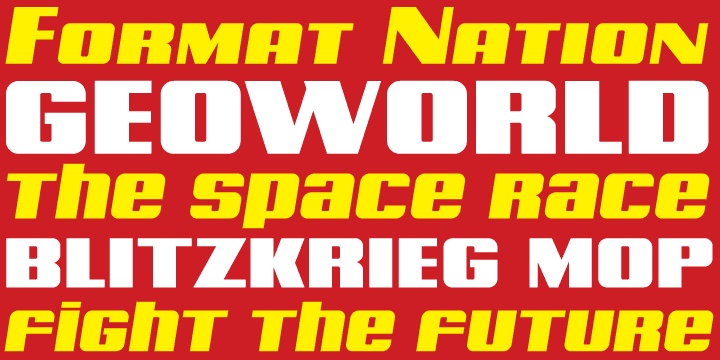
Stella Font
Stella Font is ideal for astronomical observatory branding, celestial wedding themes, stargazing experience promotions, planetarium display materials, cosmic jewelry collections, stellar photography services, astronomy education centers, night sky tourism campaigns, celestial navigation courses, and luminous lifestyle brand identities. This radiant typeface brings stellar brilliance and cosmic wonder to any space-inspired design project.
Stella Font is exciting because it embodies the infinite beauty and inspiring wonder of starlight, featuring luminous letterforms that seem to twinkle with celestial energy and capture the awe-inspiring magnificence of stars that have guided humanity across oceans and through time. Its stellar character instantly conveys hope, guidance, and the eternal beauty that connects us to the cosmos.
Stella Font family includes Ultra Light, Light, Regular, Medium, and Bold weights with stellar alternates, cosmic flourishes, constellation ornamental elements, and celestial symbols that enhance the astronomical aesthetic, providing space designers with brilliant tools for creating typography that celebrates the wonder and beauty of stellar phenomena and cosmic exploration.
Astronomical designers appreciate Stella Font for its exceptional ability to convey stellar magnificence and cosmic inspiration through luminously crafted letterforms. The font's radiant character and celestial details create immediate associations with starlit nights, astronomical discoveries, and the profound sense of wonder that comes from contemplating our place in the vast, star-filled universe that surrounds us.
The design inspiration behind Stella Font draws from star charts, astronomical observations, and the ancient human fascination with stellar navigation and cosmic beauty, making it particularly effective for educational institutions, observatories, and space-themed brands seeking to establish authentic connections with astronomical wonder and celestial inspiration. Scientific teams working on stellar projects find this font essential.
Whether used for astronomical observatories, space education programs, or celestial-themed events, Stella Font delivers the perfect combination of stellar beauty and cosmic authenticity. Its luminous appeal and astronomical heritage make it an indispensable choice for brands that celebrate stellar phenomena, cosmic exploration, and the infinite wonder of the star-filled universe that inspires humanity's greatest discoveries.